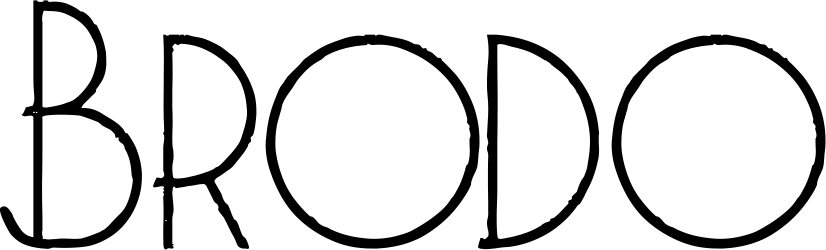
Brodo Font
Would you like to use a thin grunge retro font for your wonderful typography?! Well, the promising news is that Brodo is exactly that font that will help you to create beautiful typography with a vintage feel, that also has a sans serif style to the design of the characters.
The letterforms provided are 2 sets of capitalized alphabets, numbers, and some punctuations while leaving out lowercase letters. Books, logos, brands, adverts, and text are places to carry out Brodo.